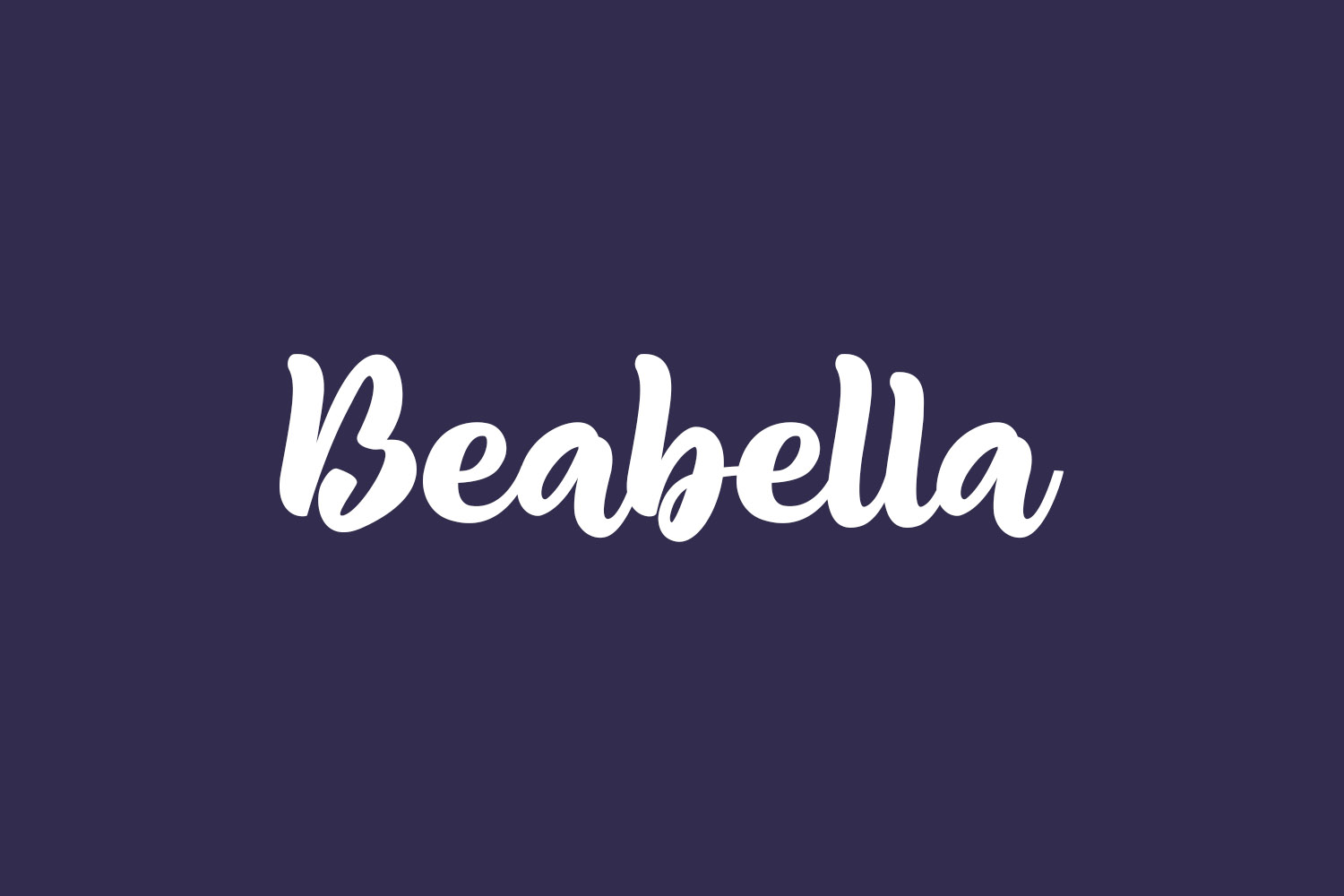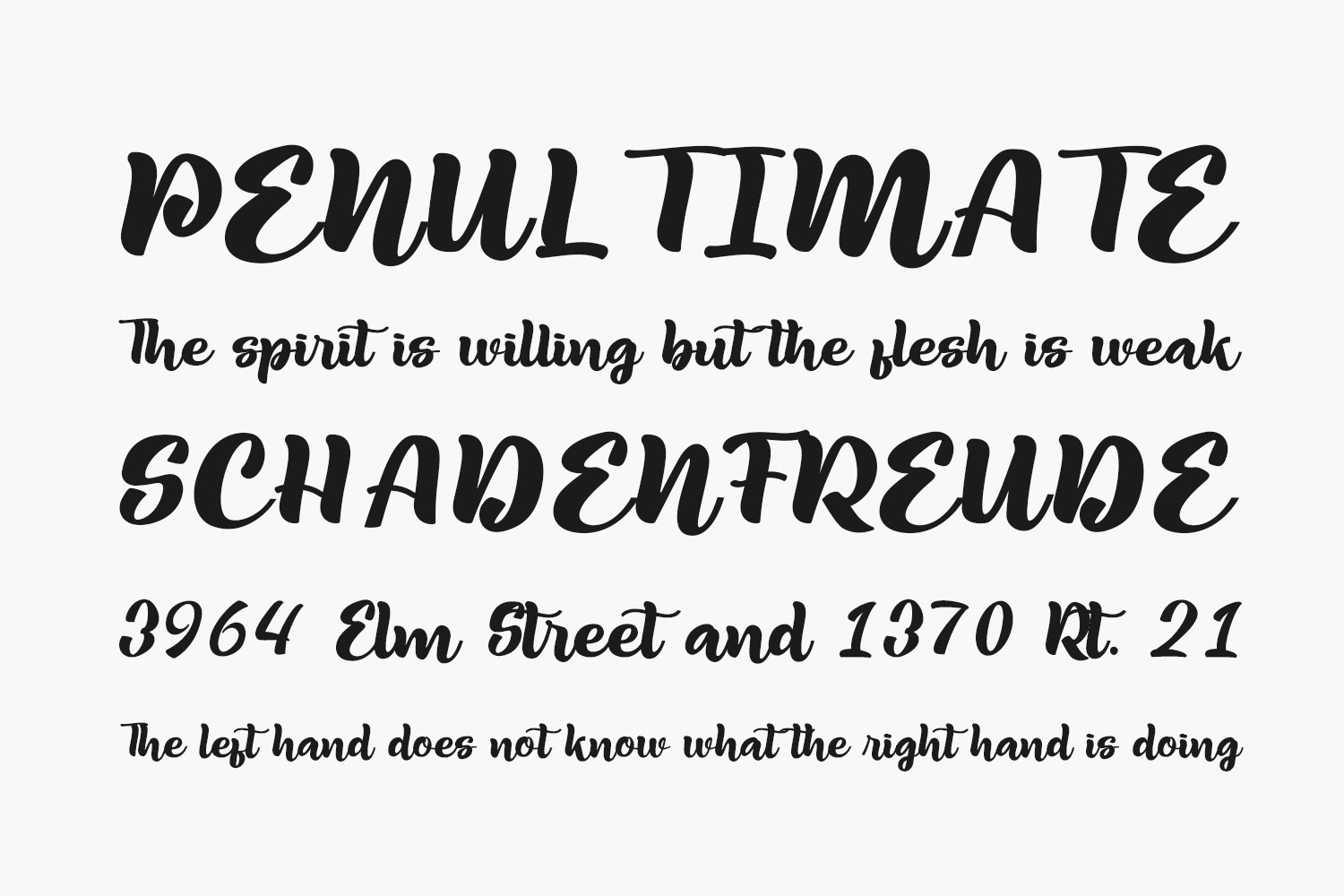
Beabella Free Font is a sweet, all round and flexible handwritten font. Warm, romantic, and jolly, this font will turn each of your project ideas into real works of art. Have fun with this beautiful font and explore its endless variations. Beabella Free Font was designed by Eknoji Studio and is free for personal use only. Please purchase the full version for commercial use.